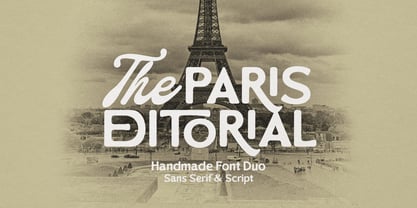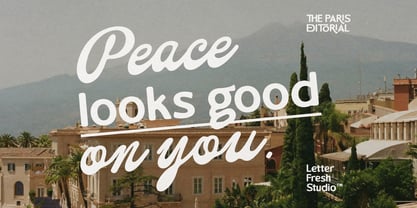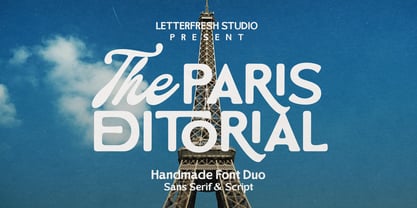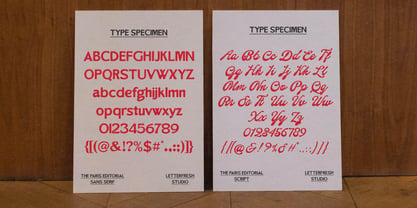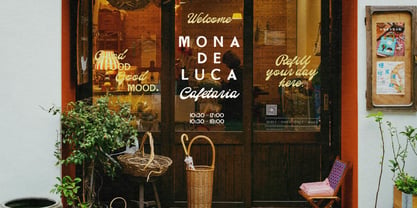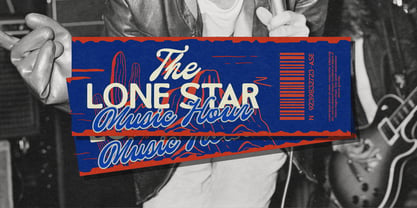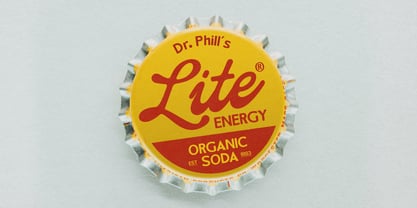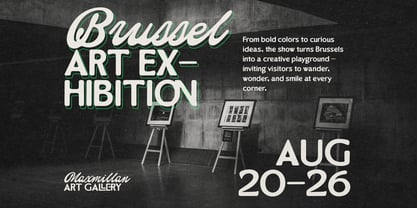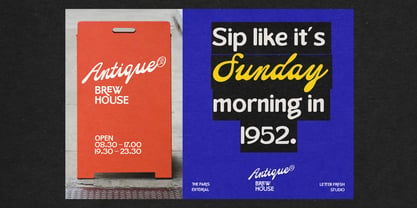
The Paris Editorial Script
The The Paris Editorial Script Font Family was designed by Rizki Andika and published by Letterfreshstudio. The Paris Editorial Script contains 2 styles and family package options. More about this family
The Paris Editorial Script a sweet and smooth font duo! With its chunky, rounded sans and a flowing, handwritten-style script, this playful pair brings just the right mix of bold and friendly. Perfect for product labels, greeting cards, social media posts, branding projects, logo designs, packaging, quotes, and more. I hope you enjoy these fonts; feel free to leave a comment if you have any thoughts or feedback. Thank you for purchasing, and have fun!